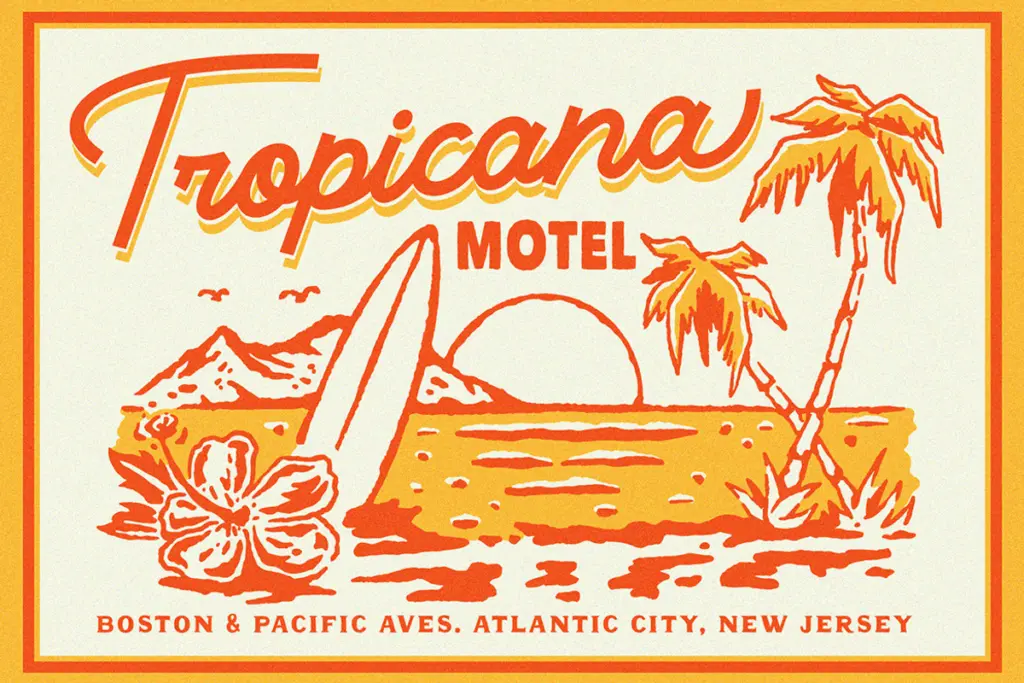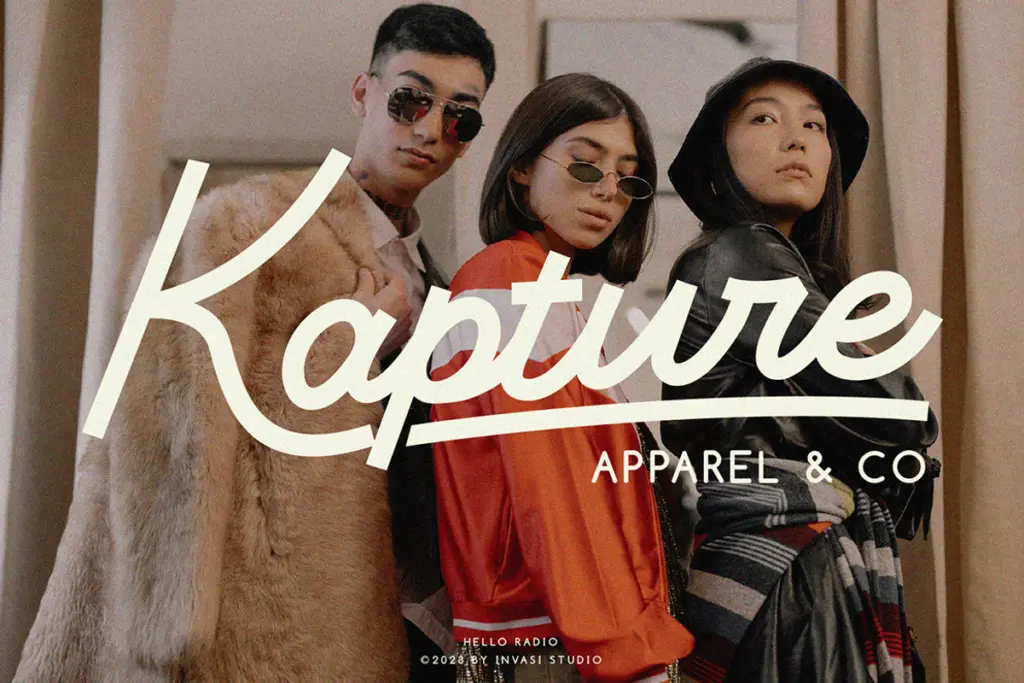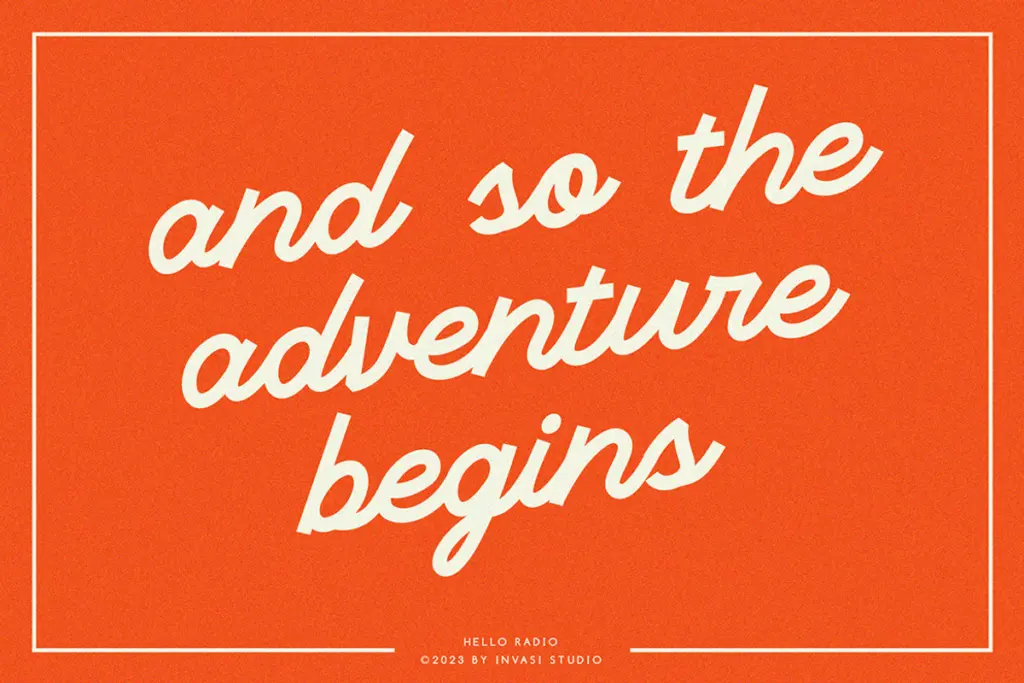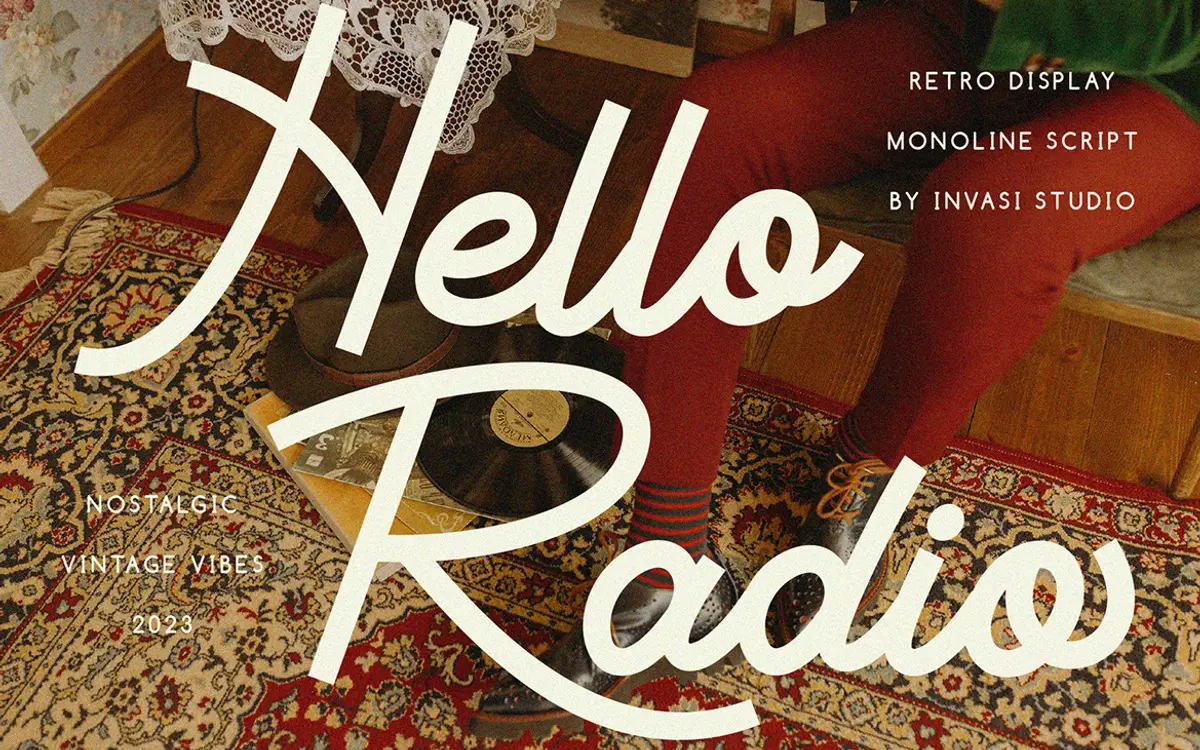
Hello Radio Font Free Download
Hello Radio is a monoline script that leans into the loose, hand-drawn end of the category. The stroke stays a single weight throughout, no thick-thin contrast, which puts all the personality into the letter shapes rather than the line quality. Those shapes wobble deliberately — baselines drift, joins aren’t perfectly even, and terminals sometimes flick out a touch further than you’d expect from a more disciplined script. That’s the point: it’s built to read as handmade rather than plotted, closer to sign-painter lettering or an old radio-station logo than to a formal calligraphic script.
The connections between letters are loose rather than continuous. Some pairs join, others sit close without quite touching, which gives the face a scrappy, sketched rhythm rather than the unbroken ribbon you get from more polished monoline scripts. It’s a font with a specific mood — nostalgic, a bit playful, not trying to look expensive.
The set covers uppercase and lowercase, numerals, and standard punctuation, along with ligatures for smoother letter pairs. Multilanguage support across a wide range of Latin-based languages is included, so accented characters are accounted for if you’re setting copy outside English. There’s no mention of alternate glyph sets or swash variants beyond what ligatures provide, so don’t expect the deep stylistic-alternate menus that some script families ship with — this is a more compact toolkit, and OpenType features need a program that actually exposes them, which rules out quick use in basic layout tools.
Because it’s monoline and irregular by design, the font asks a bit more of the person setting it. Letterforms that lean on imperfection can start to look messy rather than charming if you fight them — stack too many words tightly, or set it too small, and the deliberate wobble reads as noise instead of character.
This is a font for short bursts of text where tone matters more than density: logotypes, badge and label lettering, packaging accents, t-shirt graphics, signage-style headlines. It suits brands that want a warm, slightly retro, unpolished feel — diners, radio stations (fittingly), craft goods, farmers’ market branding, that kind of register. It’s less suited to anything that needs to look refined or contemporary; the imperfection cuts against a sleek or minimal brand.
Keep it to headline and display sizes. At body-copy sizes the irregular baseline and loose joins will slow reading down, so pair it with a plain sans or serif for any supporting text rather than trying to make it carry a paragraph. For wedding stationery or anything invitation-adjacent it can work, but only if the client wants playful over elegant — it’s not a formal calligraphic script and shouldn’t be sold as one.
- Consistent monoline stroke keeps the retro, sign-painted feel unified across the set
- Loose, imperfect joins give it a genuine handmade quality rather than a generic script look
- Broad Latin-based language support makes it usable beyond English-only branding
- The irregular baseline and loose connections hurt readability below display sizes
- Limited stylistic alternates compared to other script families, so variation options are thin
Hello Radio delivers a specific, warm, retro mood through a monoline script with deliberately imperfect letterforms. It's best kept to short display use — logos, labels, badges — since the looseness that gives it charm also limits legibility at smaller sizes.